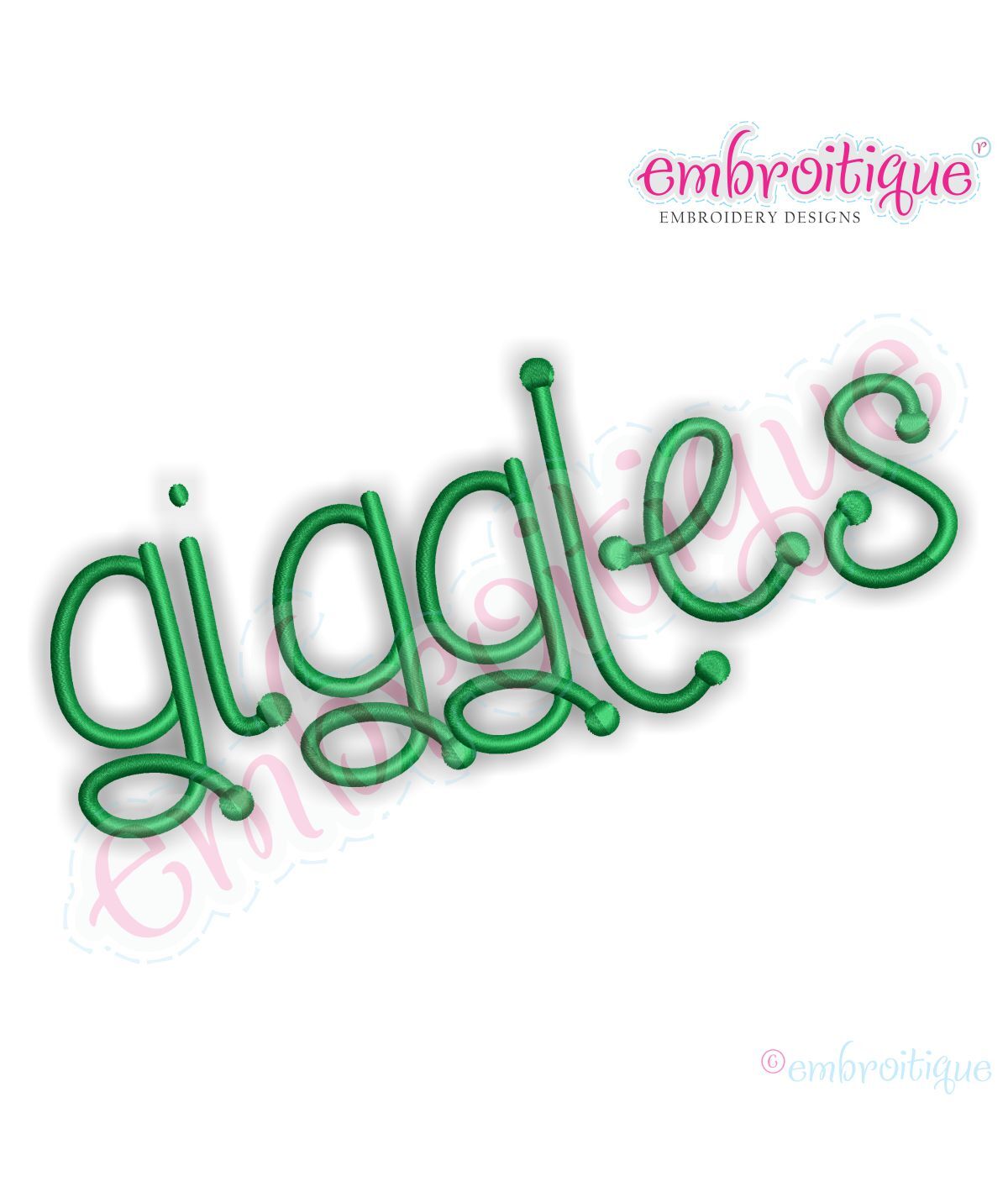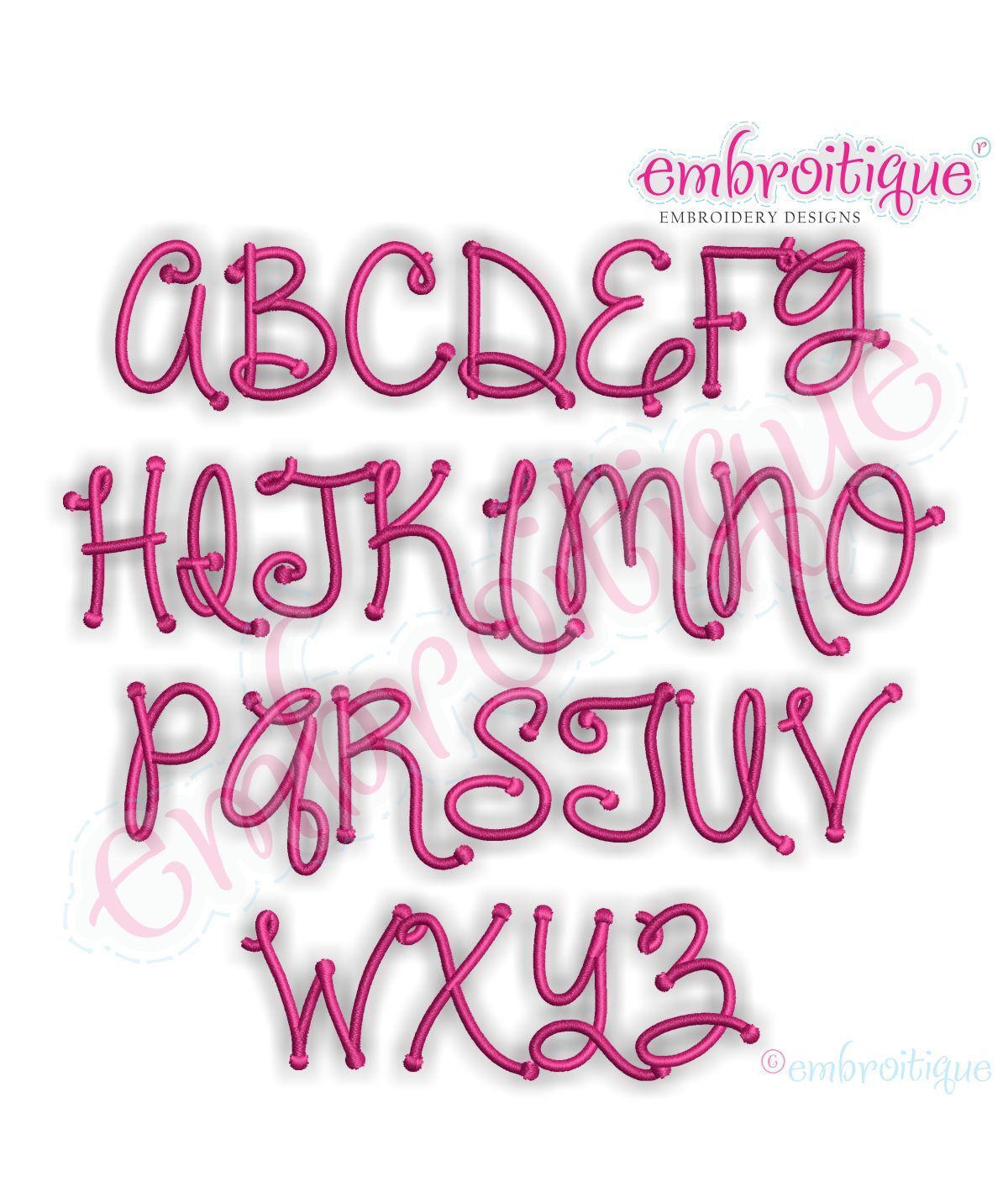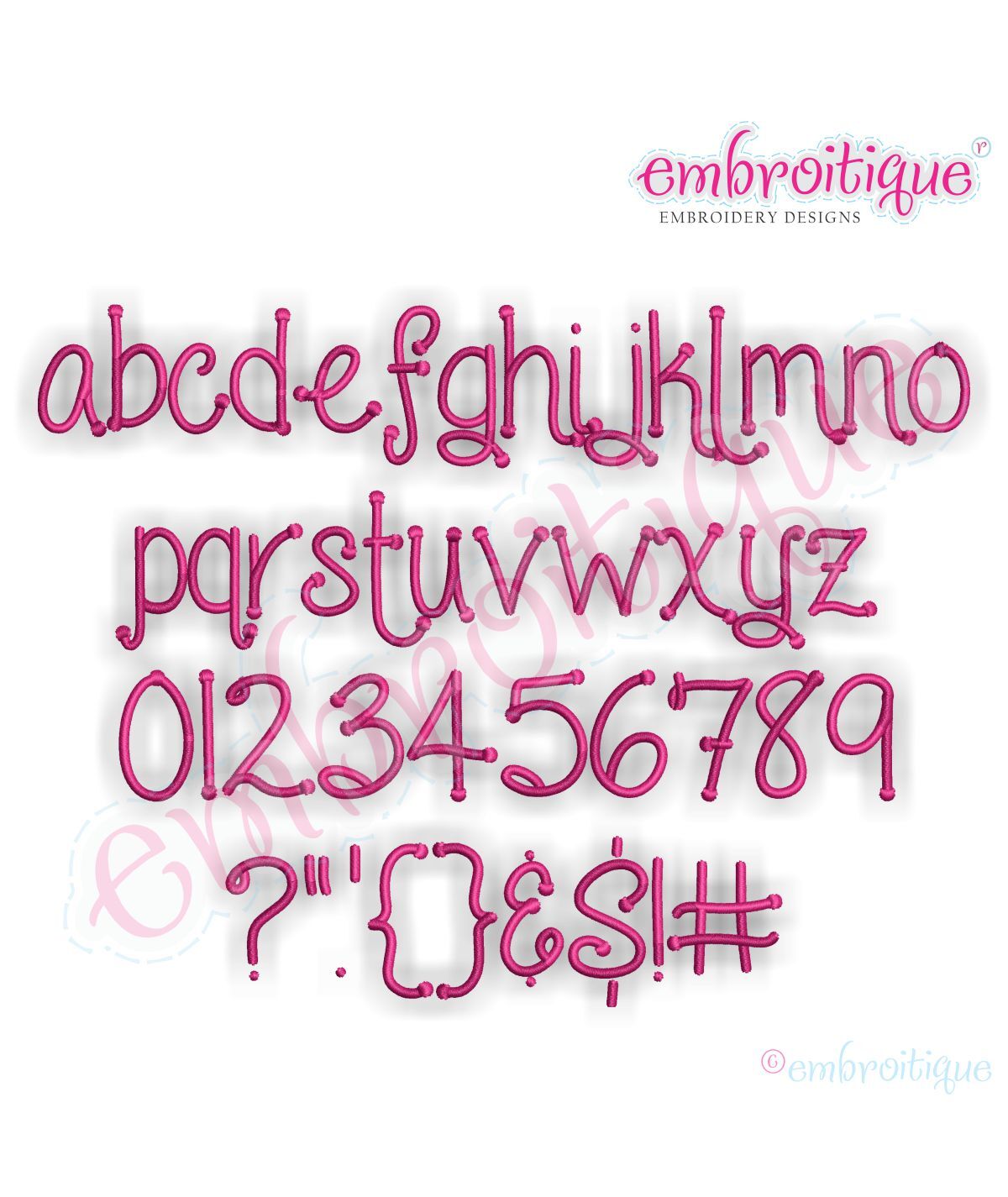
Giggles Embroidery Font Monogram Set
EMBTQ Giggles MS
Our Giggles machine embroidery monogram alphabet font is a playful, dotted handwriting font
perfectly suited boys and girls of all ages! Â You will have tons of fun using this with any project
you can imagine!